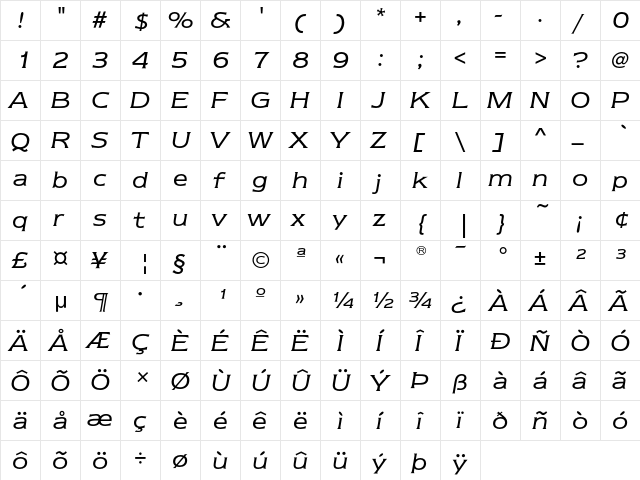
NewtextEF BookItalic
Design Context for NewtextEF Typeface
NewtextEF is a composed and adaptable typeface that performs quietly and consistently across a wide range of design contexts. The dynamic lean of this cut emphasises speed and emphasis in any layout.
Pro Tip: Use NewtextEF for emphasis, pull quotes, and subheadings where its slanted energy can add rhythm to the layout.